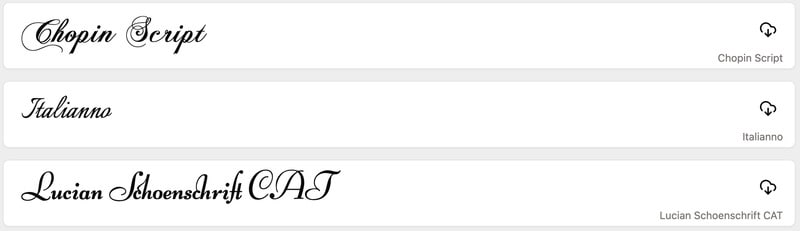
Cursive Font Generator Converts Text Into Elegant, Shareable Styles
A Cursive Font Generator is an online tool that transforms standard text into elegant, cursive-style fonts. It allows users to create visually appealing text for social media posts, digital messaging, and graphic design without the need for specialized software.
Typically, these generators work instantly in the browser, providing a fast and accessible way to stylize text for personal or professional purposes. The resulting fonts are often compatible across platforms, ensuring that cursive text displays correctly on websites, messaging apps, and social media channels. For marketers, content creators, and designers, such tools can enhance the visual appeal of captions, headers, or promotional content. By simplifying the process of generating stylish text, cursive font generators provide a practical solution for elevating digital communication and design aesthetics.
Custom Cursive Typography
The rise of online text generators highlights the growing demand for customized cursive typography in enhancing digital communication aesthetics.
Instant Browser-based Tools
The popularity of instant browser-based tools caters to users seeking quick, hassle-free solutions for personalized text creation.
Cross-platform Font Compatibility
Ensuring cross-platform font compatibility addresses a critical need for consistent visual representation across varied digital formats.
Who This Affects Most
Social Media Enhancement
Social media enhancement is driven by tools that allow for visually distinct content, appealing to users eager to stand out in a crowded digital space.
Digital Content Creation
Digital content creation benefits from innovations that streamline the integration of aesthetic typography into diverse media outputs.
Graphic Design Services
Graphic design services are evolving with the incorporation of tools that enable faster and more flexible design options without traditional software limitations.